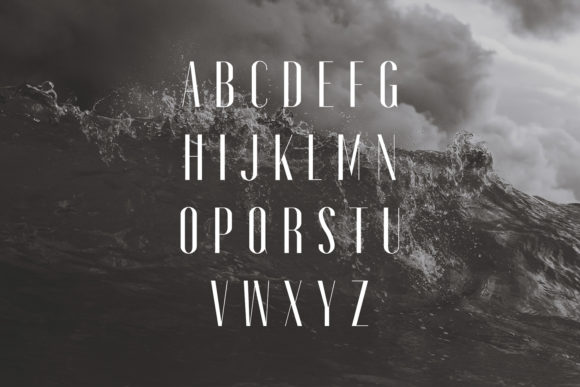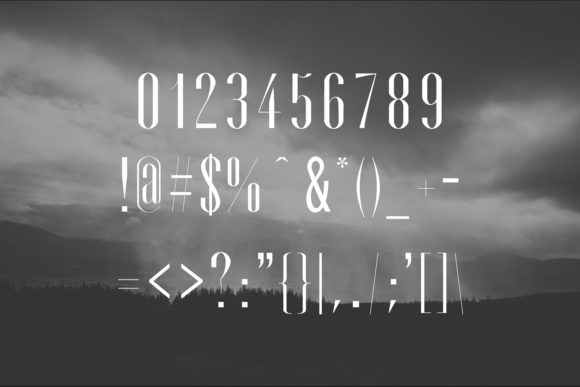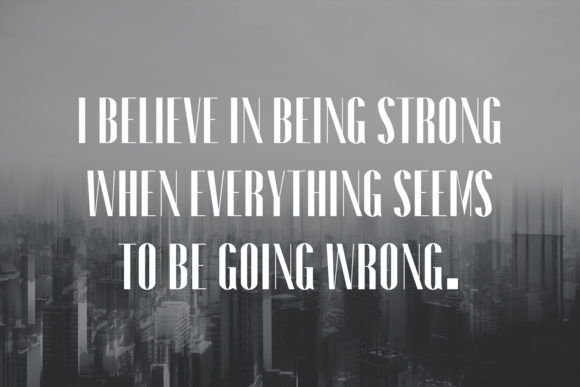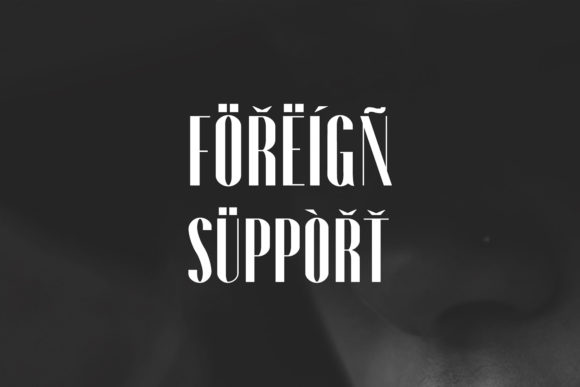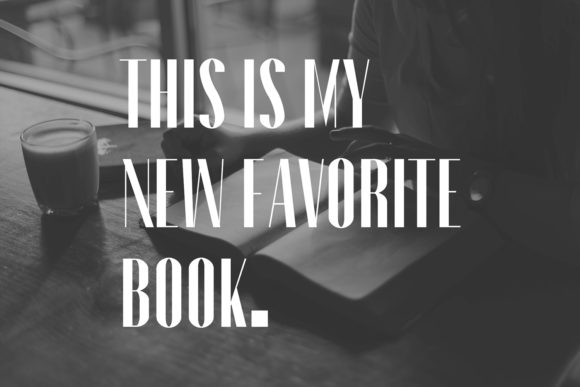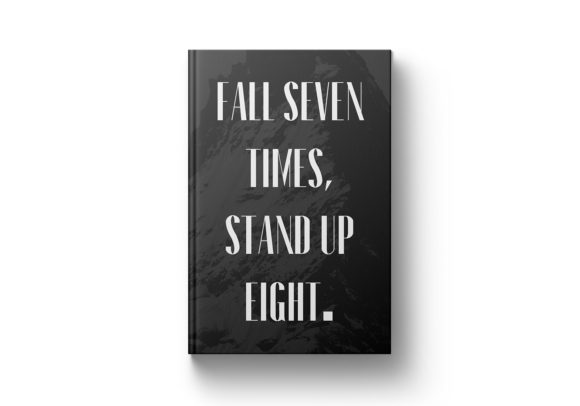
Cador Font: Elevate Your Design with Timeless Elegance
In the world of typography, few fonts manage to strike a balance between classic sophistication and modern charm. Cador Font is one such gem that effortlessly merges elegance with a unique appeal, making it a go-to choice for designers and crafters looking to elevate their projects. In this article, we’ll dive into the essence of Cador Font, exploring its features, and how it can transform your design endeavors into stunning masterpieces.
The Essence of Cador Font
Cador is a sans serif font that breaks the mold of conventional sans serifs by infusing a classic, elegant vibe into its design. Its clean lines and sophisticated appearance make it an excellent choice for a wide range of design projects, from branding and advertising to packaging and digital media. What sets Cador apart is its unique charm—a subtle blend of traditional typography principles with a modern aesthetic that feels both fresh and timeless.
Key Features of Cador Font
- Classic Elegance: Cador’s design is rooted in classic typography, offering an air of sophistication that can elevate any design project.
- Unique Charm: The font possesses a distinctive character that sets it apart from more generic sans serif fonts, providing a unique touch to your designs.
- Versatility: Cador’s versatility makes it suitable for a variety of applications, from logos and headlines to body text, ensuring consistency across your design projects.
- Readability: Despite its elegant and sophisticated nature, Cador maintains high readability, making it an excellent choice for both digital and print media.
Inspiration from Timeless Appeal
The timeless appeal of Cador Font lies in its ability to evoke a sense of classic luxury while remaining approachable and modern. Designers can draw inspiration from its elegant lines and sophisticated presence to create designs that stand the test of time. Whether you’re working on a luxury brand identity, a high-end product packaging, or a sophisticated website layout, Cador Font provides the perfect foundation for creating visually stunning and memorable designs.
Turning Design Projects into Stunners with Cador
So, how can you leverage Cador Font to turn your design projects into stunners? Here are a few tips:
- Pair with Complementary Fonts: Combine Cador with complementary fonts to create visual interest and hierarchy in your designs.
- Experiment with Colors: While Cador’s elegance shines in black and white, experimenting with colors can add a modern twist to your designs.
- Play with Textures and Patterns: Adding subtle textures or patterns can enhance Cador’s unique charm, making your designs more engaging.
- Focus on Layout and Spacing: Utilize ample spacing and thoughtful layout design to let Cador’s sophistication shine.
Cador Font is more than just a typeface; it’s a design statement that combines classic elegance with a unique charm. Its versatility, readability, and timeless appeal make it an invaluable asset for designers and crafters aiming to create impactful and beautiful designs. Whether you’re embarking on a branding project, crafting a digital masterpiece, or designing print materials, Cador Font is your ally in creating stunning, memorable work. Embrace the elegance and sophistication of Cador, and watch your design projects transform into true masterpieces.
In conclusion, Cador Font stands as a testament to the power of typography in design. Its classic elegance, coupled with a modern charm, makes it a versatile and sophisticated choice for any designer looking to leave a lasting impression. Dive into the world of Cador, and discover how this timeless font can elevate your designs to new heights of elegance and sophistication.